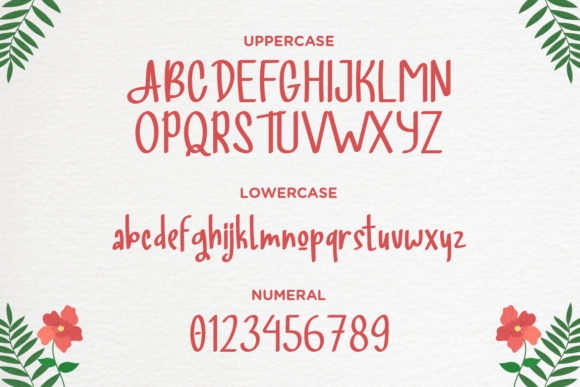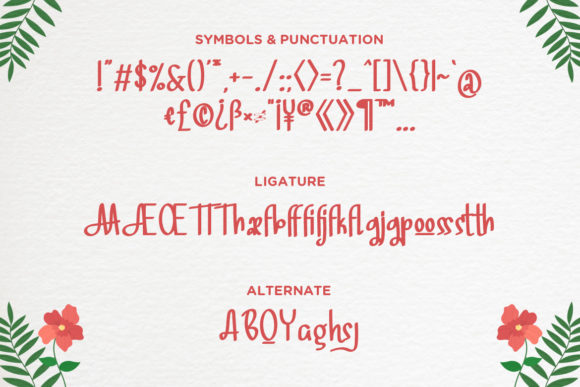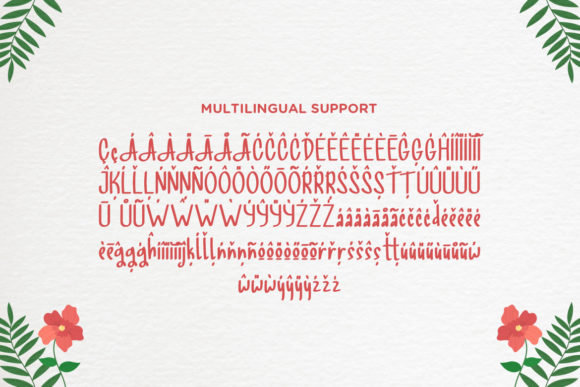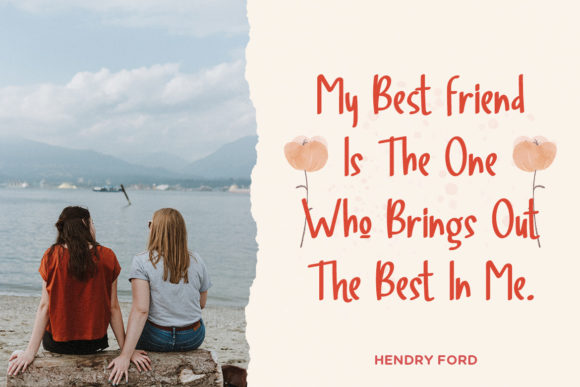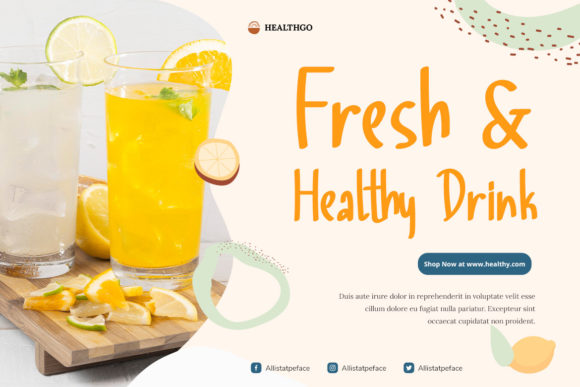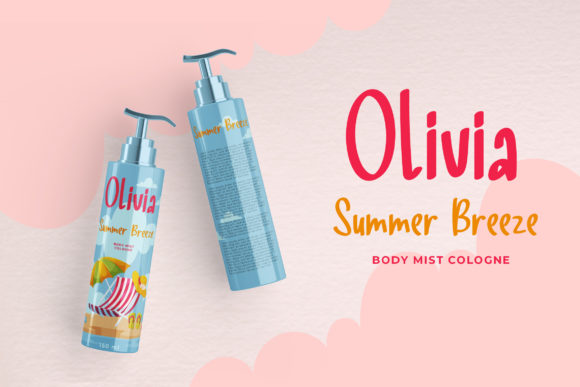
The Allista Font: A Designer’s New Best Friend
I’ll never forget the time I was working on a branding project for a trendy boutique, and I just couldn’t find the right font to capture their playful yet sophisticated vibe. My client was counting on me to deliver, and I was stuck in a font-selection rut. That’s when I stumbled upon the Allista font, and let me tell you, it was love at first sight! 💕
Allista is a fancy handwritten font, carefully handcrafted to become a true favorite. This font will look outstanding in any context, whether it’s being used on busy backgrounds or as a standalone headline. In this article, I’ll share my experience with Allista, its features, and how to make the most of it in your designs.
- ✨ Elegant and sophisticated, yet playful and fun
- ✅ Highly legible, even on small sizes and busy backgrounds
- 💫 Beautifully crafted with attention to detail
- 🎨 Versatile and works well with a variety of design styles
While Allista is an amazing font, there are a few things to keep in mind:
- 🤔 Some characters may not work well in all contexts, such as the ampersand (&) or certain punctuation marks
- ⚠️ May not be suitable for very long blocks of text, as it’s designed for headlines and titles
How to Use Allista in Your Designs
Allista comes with some amazing OpenType features, including stylistic alternates and glyphs. To access these:
The Story Behind Allista
Allista was designed with love and care by a talented type designer who wanted to create a font that would make designers’ lives easier. The goal was to craft a font that’s both elegant and playful, perfect for a wide range of design projects. And I think they succeeded! 😊
Q: Is Allista suitable for body text?
A: While Allista is an amazing font, it’s designed for headlines and titles. For body text, you might want to choose a more traditional font.
Q: Is Allista available in different weights?
A: Currently, Allista is available in a single weight. However, you can experiment with different sizes and styles to achieve the desired effect.